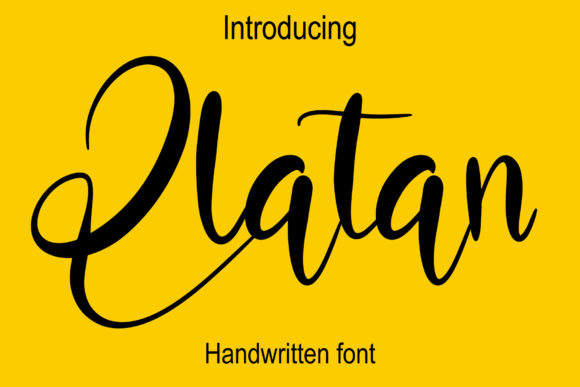
Unleash the unparalleled beauty of Zlatan, an enchanting handwritten font that will captivate your designs with its alluring curves and harmonious strokes. Immerse yourself in the world of typography as Zlatan's delicate dance across your screen ignites a passion for creativity within you.
Step into a realm where imagination flourishes, and Zlatan becomes your muse. Its versatility knows no bounds, effortlessly adorning packaging designs with an air of sophistication, transforming invitations into treasured keepsakes, and weaving a touch of elegance into every corner of your digital creations.
With Zlatan as your trusted companion, your words will transcend the ordinary and take flight, leaving an unforgettable impression on all who encounter them. Its ethereal presence will elevate your designs to new heights, captivating hearts and inspiring minds.
Zlatan's meticulously crafted letters, each a testament to the artistry of its creator, barurezeki10, harmonize effortlessly, creating a visual symphony that will leave you breathless. Its delicate strokes dance across the page, evoking a sense of timeless elegance that will make your designs stand out from the crowd.
Embrace the allure of Zlatan today, and embark on a creative journey where every stroke of your imagination becomes a masterpiece. Let its enchanting beauty ignite your passion for design and captivate the world with your creations.